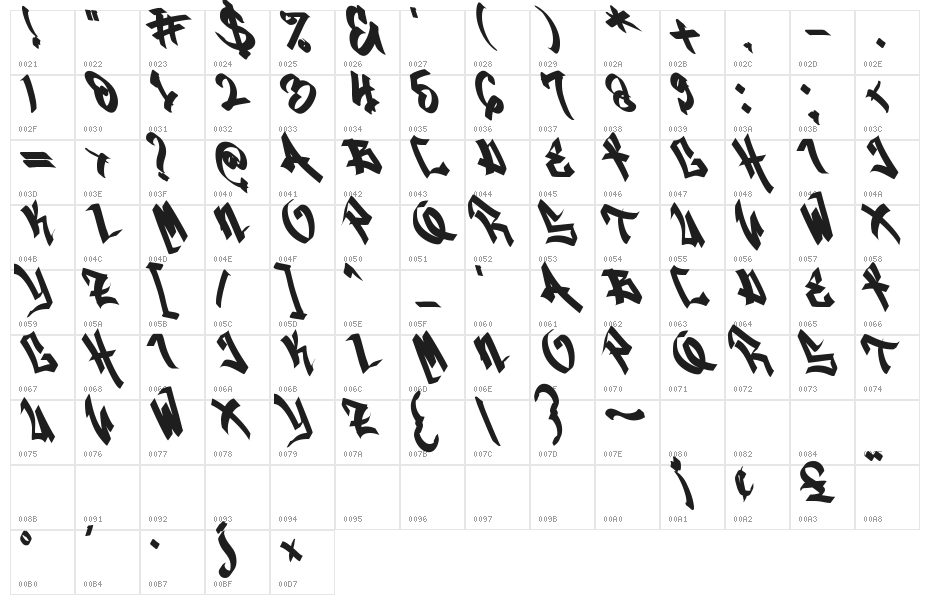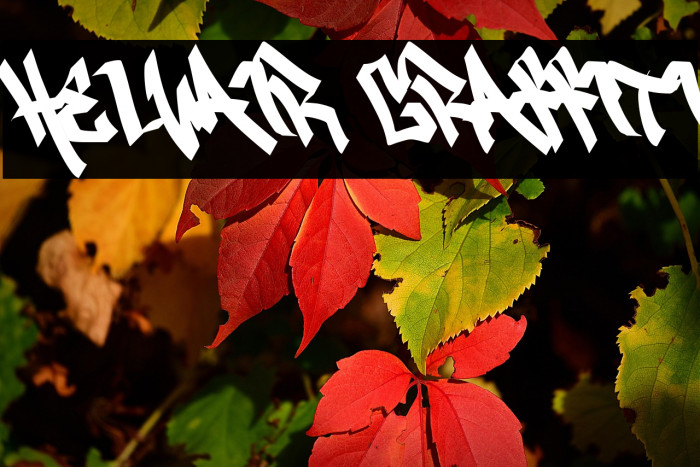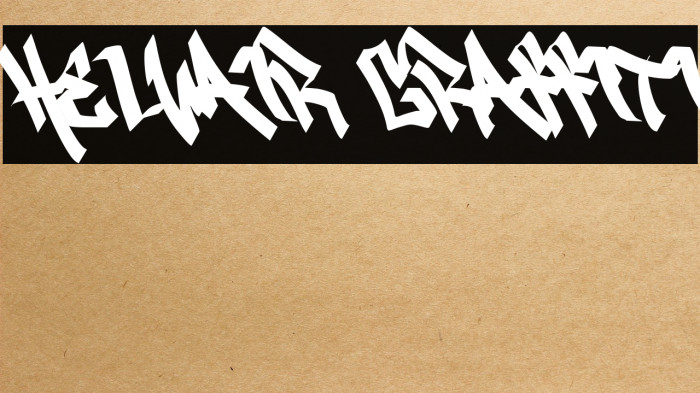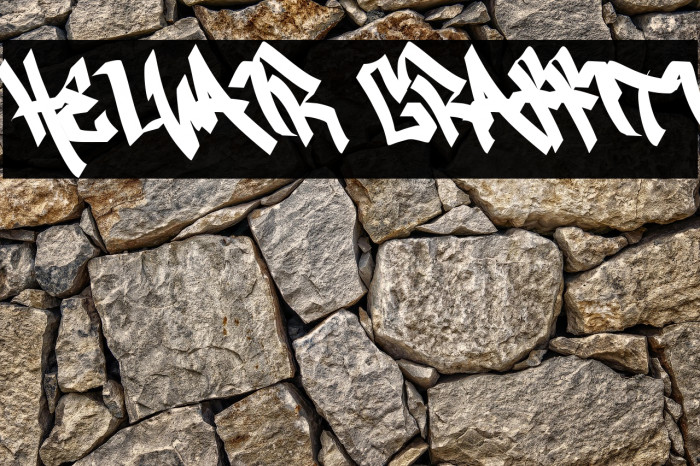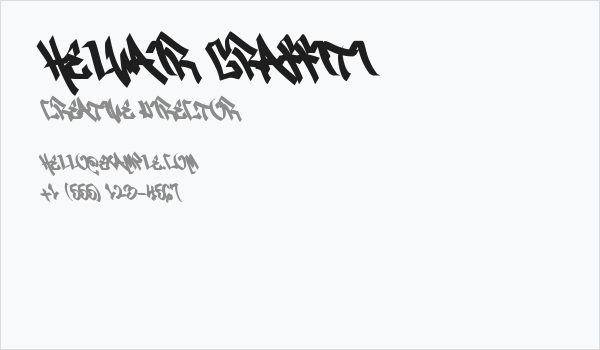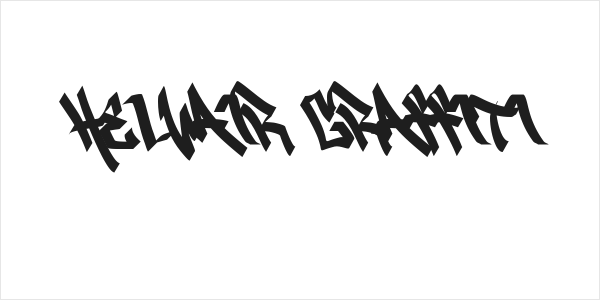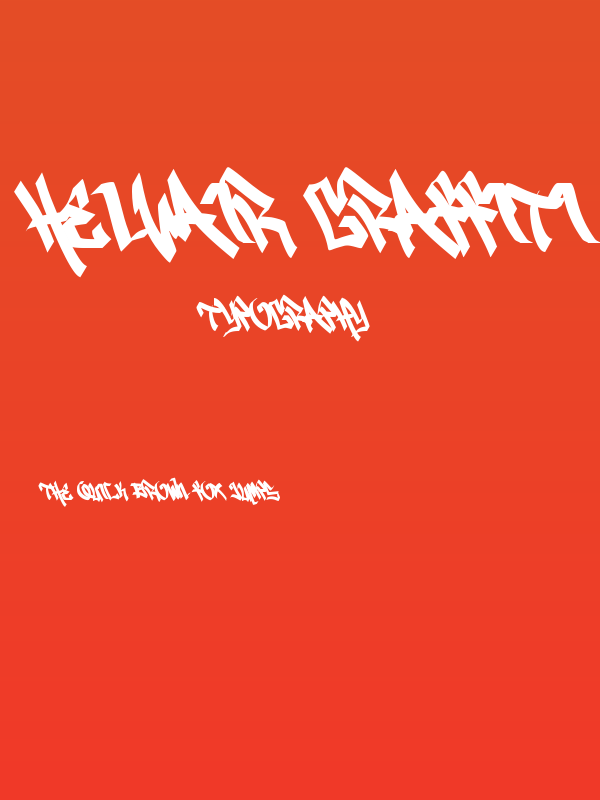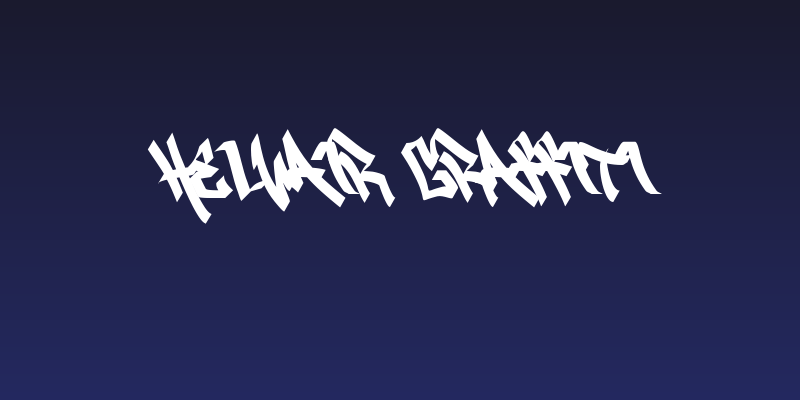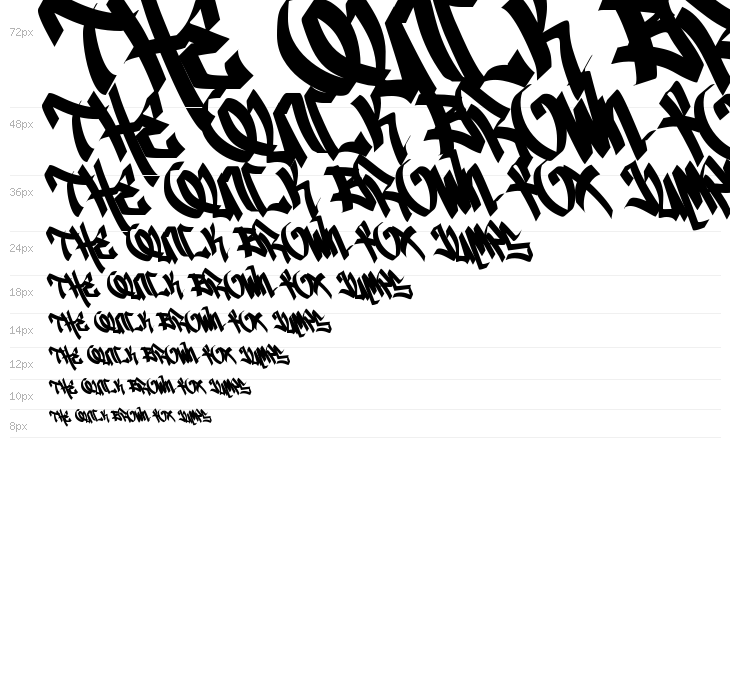
Helvair Graffiti Font
Helvair Graffiti Description
This font exudes a bold, urban graffiti style, characterized by its thick, angular strokes and dynamic, energetic forms. The letters are highly stylized, with exaggerated curves and sharp edges, creating a sense of movement and rebellion. The uppercase and lowercase letters blend seamlessly, maintaining a consistent aesthetic throughout. Numbers and special characters follow the same design principles, adding to the font's cohesive look. This font captures the essence of street art, making it ideal for projects that require a strong, impactful visual statement.
Overall StyleUrban, Graffiti, Bold
Use CaseLogos, Posters, Street Art, Album Covers
Proposed ProjectsIdeal for street art projects, urban-themed designs, music album covers, and edgy branding.